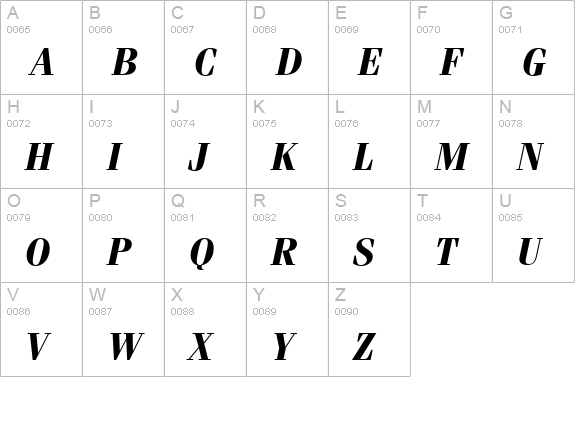
The Ferrara-Osf-BoldItalic font is a stylish and elegant typeface that exudes sophistication and class. Its bold and italic design adds a touch of flair to any project, making it perfect for headings, titles, and other attention-grabbing text. The smooth curves and strong lines of this font create a sense of modernity and professionalism, while still maintaining a timeless appeal. What sets the Ferrara-Osf-BoldItalic font apart is that it is not only visually striking, but also completely free to use. This means that you can add a touch of luxury to your designs without having to worry about any additional costs. Whether you're working on a personal project or a professional assignment, this font is sure to elevate your work to the next level. For those interested in downloading the Ferrara-Osf-BoldItalic font, it is available for free at FontsMarket.com. Simply visit the website and start using this stunning typeface in your projects today. Let the Ferrara-Osf-BoldItalic font take your design to new heights with its bold and italic charm.